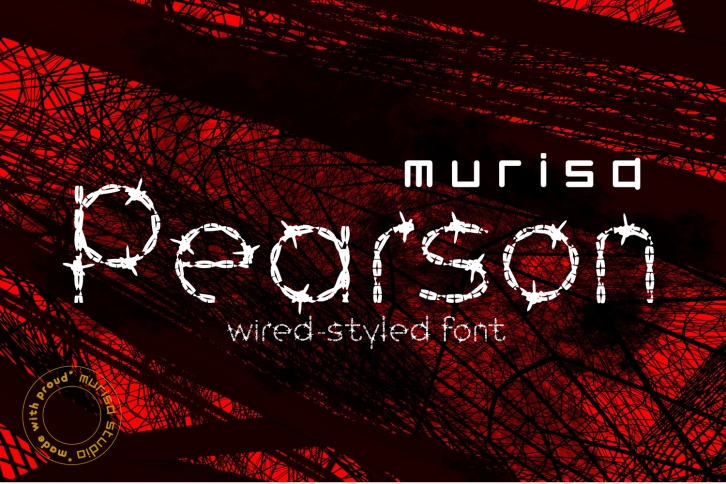
This is a very unique font. He transformed into a different font with a strong wire character. The font that is perfect for your product is strong and sturdy. Murisa Pearson is a dynamic and artistic reflection of the font for your product or design. Get it now